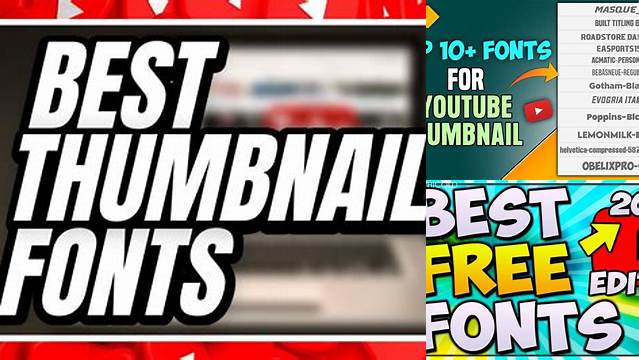
Best Fonts For YouTube Thumbnails: Top Choices For 2024
Are you looking to create eye-catching YouTube thumbnails that grab viewers' attention and increase your click-through rate? One of the most crucial elements in thumbnail design is typography. The right font can make a significant difference in conveying your message and making your video stand out in a sea of content. In this article, we'll dive into the most popular fonts for YouTube thumbnails, providing you with a comprehensive guide to choosing the perfect typeface for your channel. So, let's explore some fantastic font choices to help your thumbnails shine!
Why Typography Matters in YouTube Thumbnails
Before we jump into the list of fonts, let's understand why typography is so vital for YouTube thumbnails. Think of your thumbnail as the first impression your video makes on potential viewers. It's the visual gateway to your content, and the text you use plays a crucial role in communicating what your video is about. Great typography achieves several essential goals:
- Readability: The primary goal is to ensure your text is easily readable, even at a small size. Viewers often browse YouTube on various devices, including smartphones, so your font must be clear and legible.
- Clarity: Your font should clearly convey your video's message or topic. It should complement the visuals and provide context.
- Attractiveness: A well-chosen font can make your thumbnail visually appealing and attract viewers' attention. It should stand out from the crowd and pique curiosity.
- Brand Consistency: Using consistent fonts across your thumbnails helps establish your brand identity. Viewers will start associating specific fonts with your channel, making your content more recognizable.
- Emotional Connection: Fonts have personalities. Some feel modern and sleek, while others evoke feelings of fun or seriousness. Choosing a font that aligns with your video's tone and message can create a stronger emotional connection with viewers.
In essence, your font is a silent communicator, working alongside your visuals to persuade viewers to click and watch your video. The right font can make your thumbnail pop, while the wrong one can make it blend into the background. So, let's explore some of the most effective font choices for YouTube thumbnails.
Top Fonts for YouTube Thumbnails
Choosing the best font for your YouTube thumbnails can feel like a daunting task with so many options available. To simplify things, we've compiled a list of some of the most popular and effective fonts used by successful YouTubers. These fonts are known for their readability, clarity, and visual appeal, making them excellent choices for your thumbnails. Remember, the best font for you will depend on your channel's niche, style, and the message you want to convey. Let's dive in!
1. Montserrat
Montserrat is a widely loved sans-serif font that exudes modern elegance and readability. It's a versatile option that works exceptionally well for various YouTube niches. Montserrat's clean lines and geometric shapes make it highly legible, even at smaller sizes, which is essential for thumbnails. This font family offers a range of weights, from thin to bold, allowing you to create visual hierarchy and emphasize key words in your thumbnail text.
Why Montserrat is Great for Thumbnails:
- Readability: Montserrat's clear and simple design ensures viewers can easily read your thumbnail text, even on small screens.
- Versatility: It works well for a variety of content, from tech reviews to beauty tutorials.
- Modern Look: Montserrat's contemporary aesthetic gives your thumbnails a polished and professional feel.
- Multiple Weights: The availability of different weights allows for creative text layouts and emphasis.
Examples of Use: Montserrat is a fantastic choice for tech channels, lifestyle vlogs, educational content, and business-related videos. Its clean design conveys trustworthiness and professionalism, making it ideal for channels looking to establish credibility.
2. Bebas Neue
Bebas Neue is another highly popular sans-serif font known for its tall, condensed letters. This font is a favorite among YouTubers because it maximizes space in the thumbnail while remaining highly readable. Bebas Neue's strong vertical presence commands attention, making it a great choice for headlines and titles. Its bold and impactful style is perfect for creating thumbnails that stand out in the crowd.
Why Bebas Neue is Great for Thumbnails:
- Space Efficiency: Bebas Neue's condensed design allows you to fit more text into your thumbnail without sacrificing readability.
- Impactful: Its tall and bold appearance grabs attention and makes a strong statement.
- Modern and Stylish: Bebas Neue has a contemporary feel that complements a wide range of video styles.
Examples of Use: Bebas Neue is a popular choice for gaming channels, fitness videos, DIY tutorials, and any content where a bold and impactful headline is needed. Its attention-grabbing style helps to pique viewers' curiosity and drive clicks.
Choosing the right fonts for your YouTube thumbnails is a critical step in creating visually appealing and effective thumbnails that attract viewers and boost your click-through rate. By understanding the importance of typography and exploring the most popular font options, you can elevate your thumbnail design and make your videos stand out in the crowded YouTube landscape. Remember to prioritize readability, brand consistency, and the message you want to convey. With the tips and resources provided in this article, you're well-equipped to select the perfect fonts for your YouTube thumbnails and create compelling visuals that draw viewers in. So, go ahead and experiment with different fonts, find what works best for your channel, and watch your click-through rates soar! Remember guys, choosing a font might feel like a small detail, but it can make a HUGE difference in your channel's success. So, get out there and make those thumbnails shine!